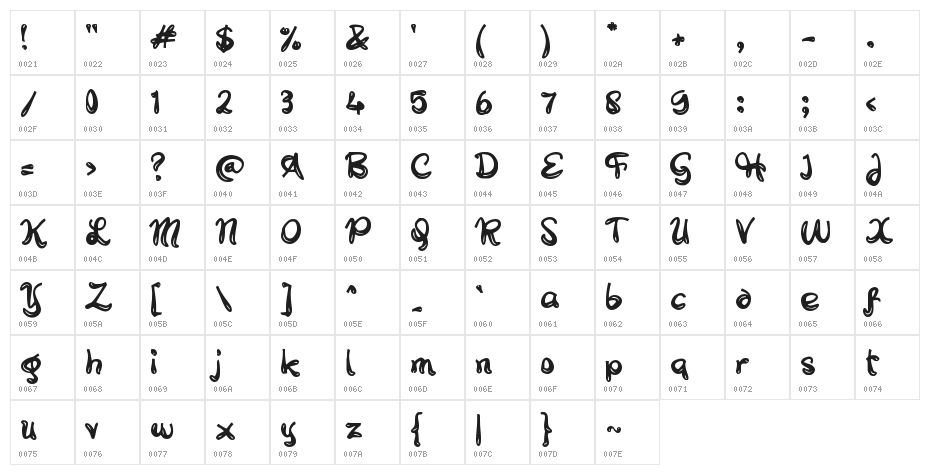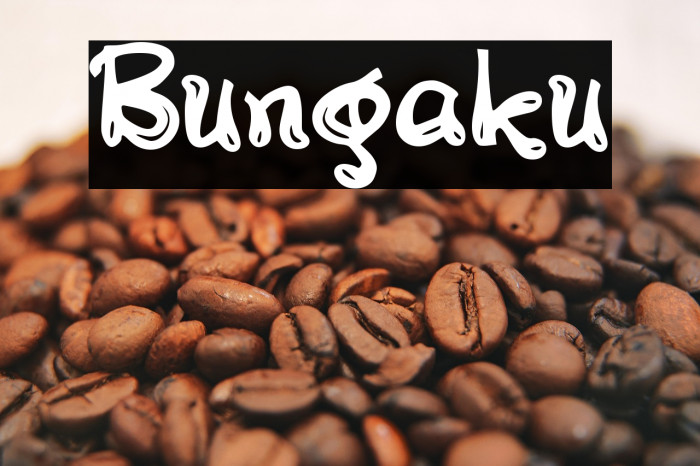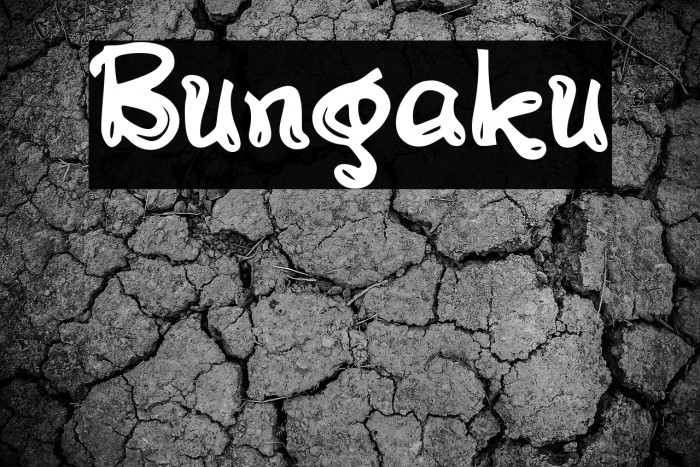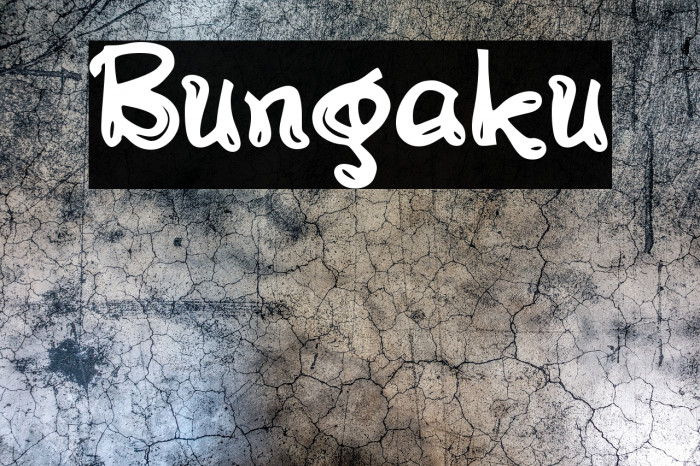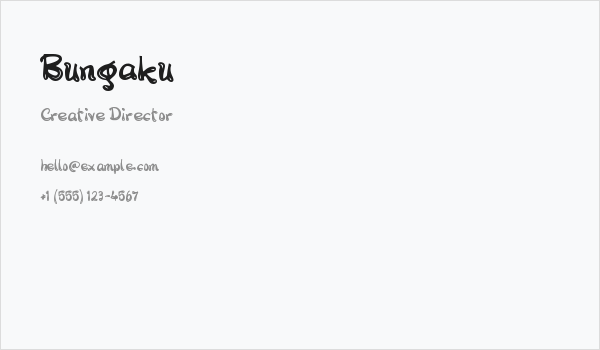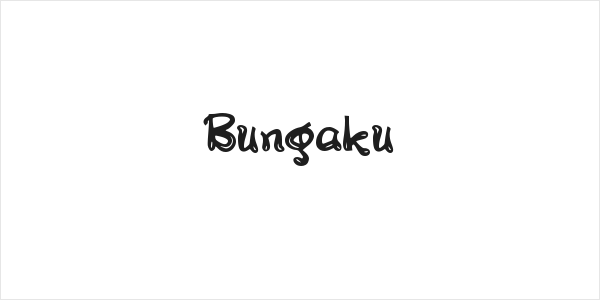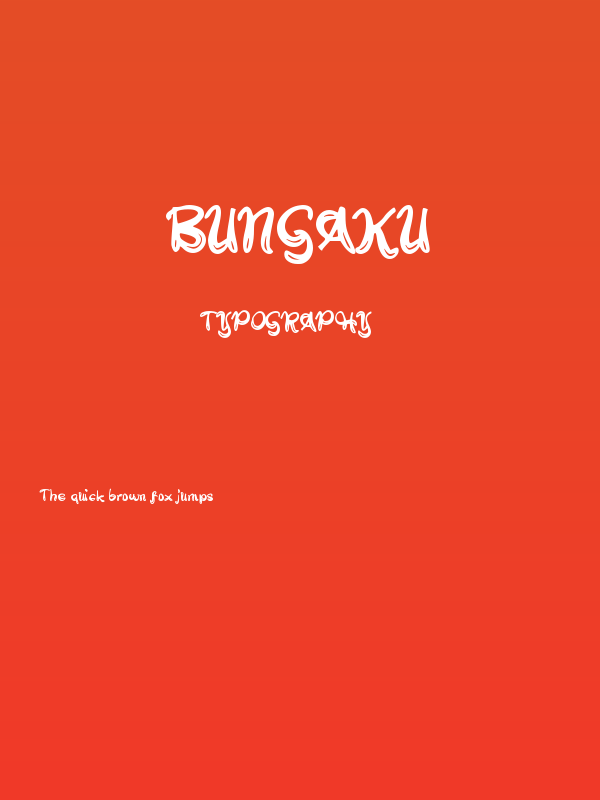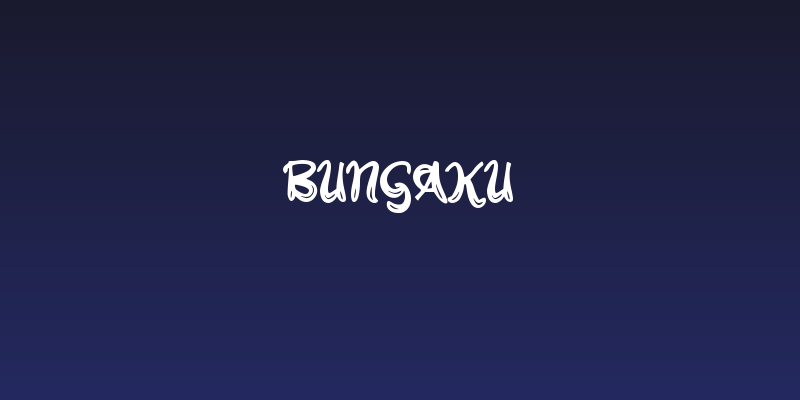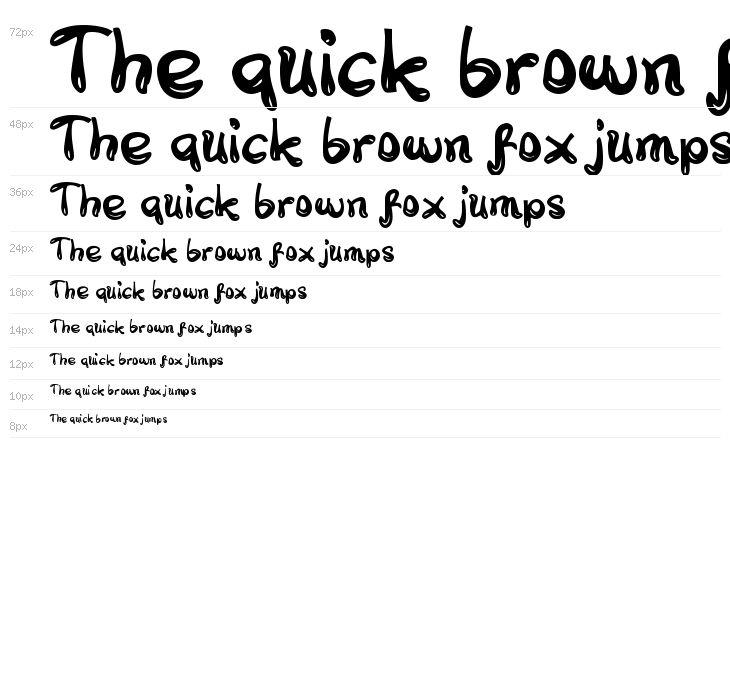
Bungaku Font
Bungaku Description
This font features a bold, playful script style with a strong presence. The characters are rounded and have a whimsical, artistic flair, reminiscent of hand-drawn lettering. The strokes are thick and consistent, giving the font a robust and energetic appearance. The uppercase and lowercase letters maintain a cohesive style, with distinctive loops and curves that add to its charm. The numbers and special characters follow the same design principles, ensuring uniformity across all glyphs. This font is ideal for projects that require a lively and informal touch, such as children's books, creative posters, or branding for playful products.